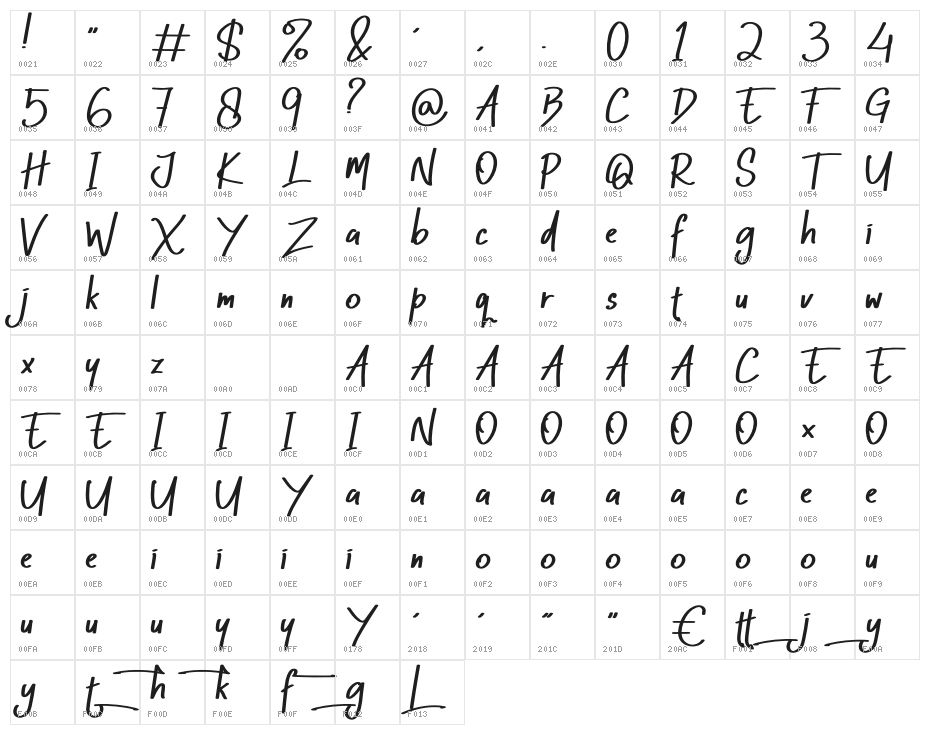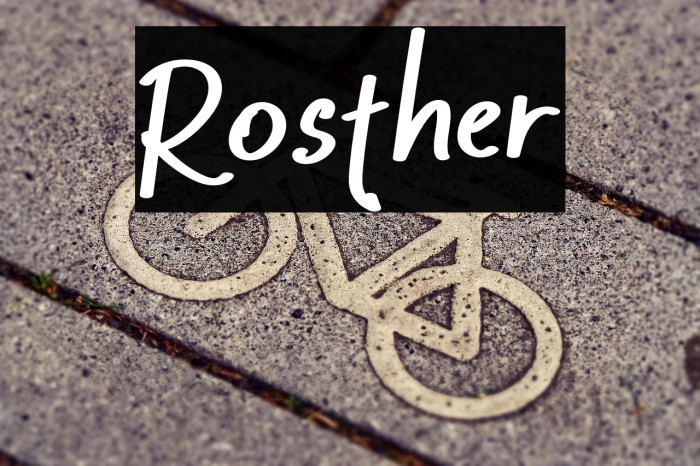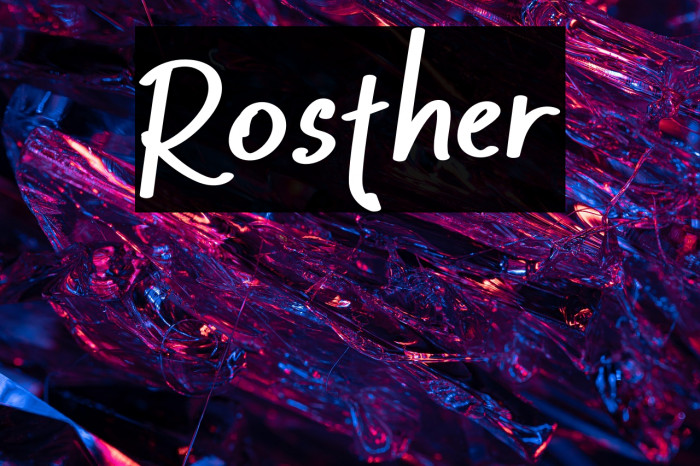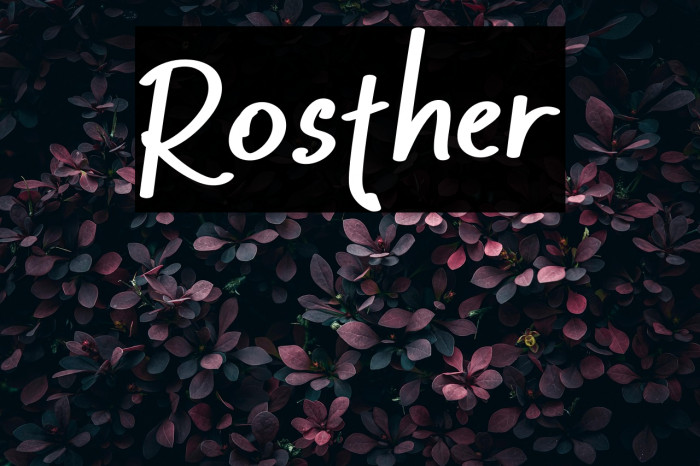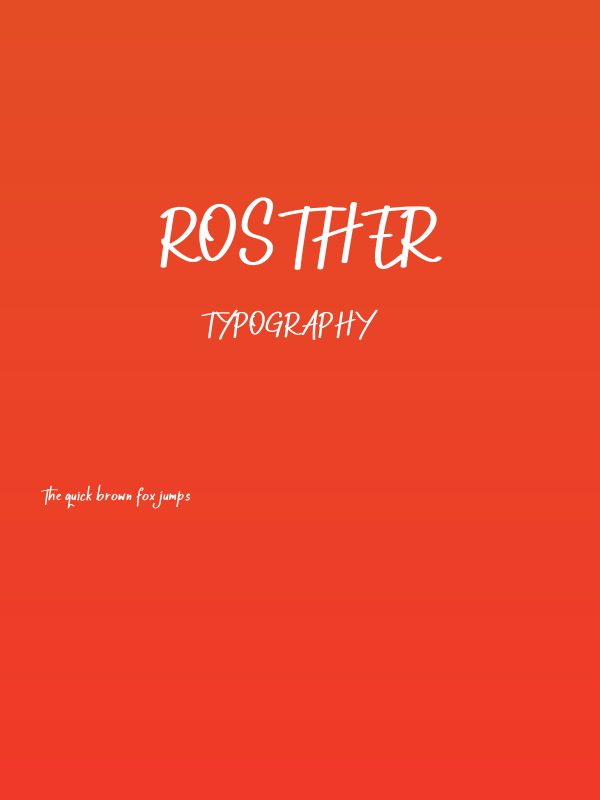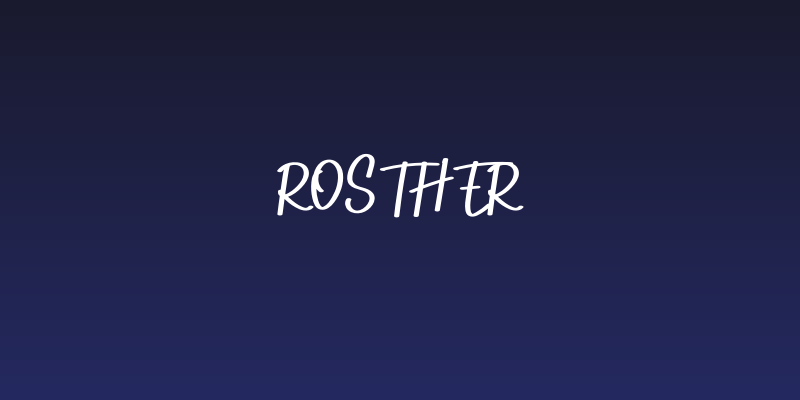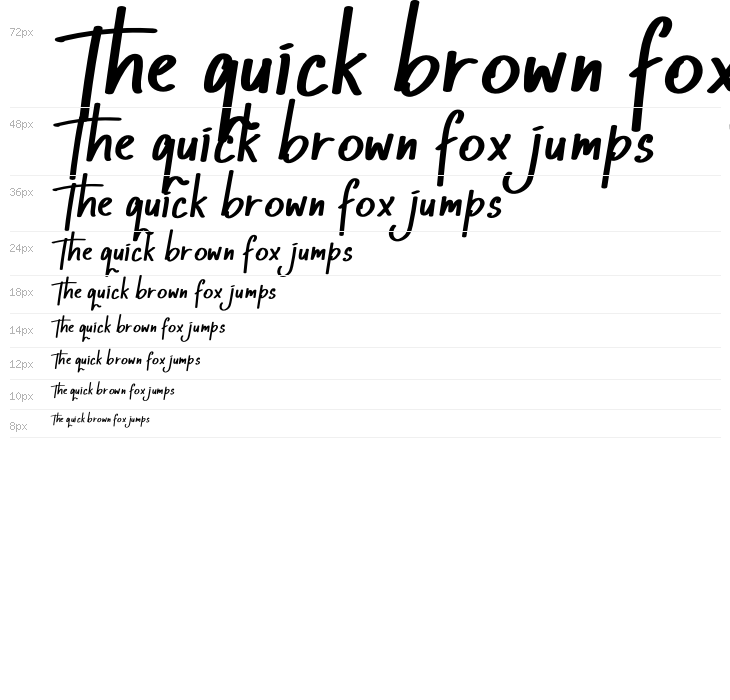
Rosther Font
Rosther Description
This font features a dynamic and expressive handwritten style, characterized by its fluid strokes and slight slant, giving it a casual yet artistic appearance. The uppercase letters are bold and slightly condensed, while the lowercase letters maintain a consistent flow with varying stroke widths that add a lively rhythm to the text. The numerals and special characters are crafted with the same energetic flair, ensuring a cohesive look across all elements. This font's playful and informal nature makes it ideal for projects that require a personal touch or a creative edge.
| Use Case | Logos, Headlines, Creative projects |
| Proposed Projects | Ideal for greeting cards, invitations, personal branding, and creative posters. |